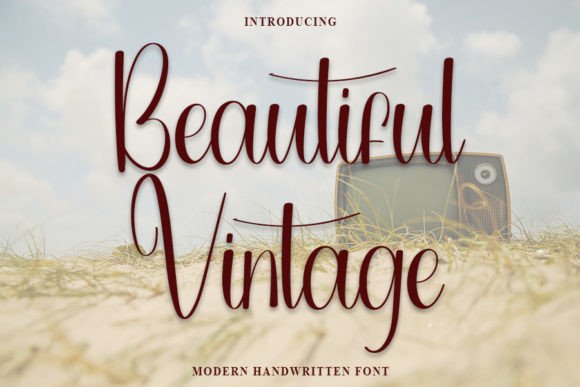
Journey back to an era of timeless beauty with the Beautiful Vintage Font, a breathtaking script font family that evokes the charm of yesteryears. PiPi Creative's masterpiece, this font collection, captures the essence of elegance and sophistication, seamlessly blending the allure of the past with the vibrancy of the present.
Indulge in the exquisite details and graceful lines of Beautiful Vintage, a font family that breathes life into your creative endeavors. Whether you're designing logos, crafting invitations, or creating eye-catching social media graphics, this font will elevate your designs to new heights.
Immerse yourself in the versatility of Beautiful Vintage, a font family that effortlessly adapts to a myriad of design styles. Its timeless charm complements both traditional and contemporary aesthetics, making it the perfect choice for projects spanning various genres and themes.
Unleash your creativity and let your imagination soar with Beautiful Vintage. This font family will transform your designs into captivating works of art, leaving a lasting impression on your audience. Experience the magic of Beautiful Vintage today and unlock the gateway to design excellence!